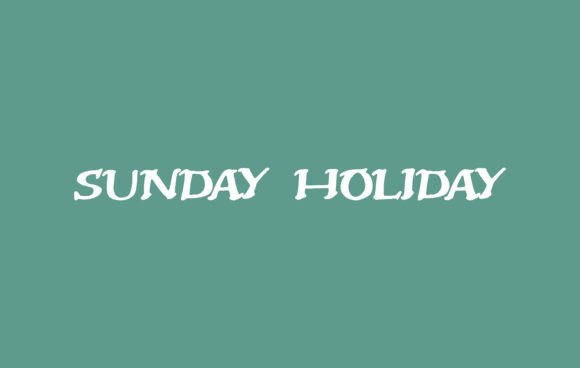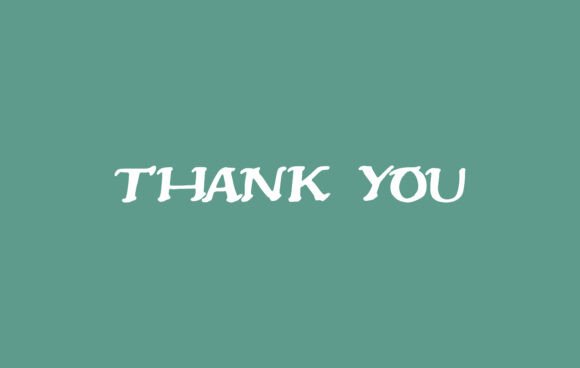
Introduction to Ironworks Font
Have you ever stumbled upon a font that sparks creativity and transports you to a world of endless possibilities? That’s exactly what happens when you discover the Ironworks Font, a high-quality, authentic handwritten font with a romantic touch. Whether you’re working on a design project or simply need a reliable font for your next creative endeavor, Ironworks Font is an excellent addition to your design resource.
With its legible design and versatility, Ironworks Font is perfect for a wide range of applications, from magazine headlines and social media to branding and wedding invitations. Its free download feature makes it an attractive option for designers on a budget, and its transparent background allows for seamless integration into any design project. As a valuable resource for designers, Ironworks Font is sure to elevate your creative projects to new heights.
Key Features of Ironworks Font
- Includes a range of font styles and weights to suit different design needs
- Designed to be highly legible at various resolutions, including 300 DPI and 600 DPI
- Perfect for use in logos, branding, and other design elements where a unique, industrial feel is desired
Honest Review: Ironworks Font
I recently had the chance to work with the Ironworks Font, and I must say, I’m quite impressed. As a designer, I’m always on the lookout for high-quality fonts that can elevate my creative projects. The Ironworks Font did not disappoint.
What works well: ✨ The font has a great, industrial feel to it, making it perfect for projects that require a touch of ruggedness. The font is also available for free download, which is always a bonus. Additionally, the transparent background makes it easy to work with in design software.
Limitations: ⚠️ While the font is great for industrial-themed projects, it may not be the best choice for more delicate or elegant designs. Additionally, some users may find the font’s boldness overwhelming.
Overall impression: I’m really pleased with the Ironworks Font and would definitely recommend it to designers working on creative projects. Its unique design and free availability make it a valuable resource in any design arsenal.
Getting the Most Out of Ironworks Font
To get the most out of the Ironworks Font, use it with a transparent background to create a sense of depth and dimensionality in your designs. Experiment with different font sizes, colors, and styles to create a unique and creative look.
The Ironworks Font is ideal for a variety of creative projects, including branding, packaging, and advertising designs. Its high-quality and unique design make it a great choice for any project that requires a professional and creative look.
Q: Can I customize the Ironworks Font to fit my specific design needs?
While the Ironworks Font is a high-quality design resource, it’s not intended for extensive customization. However, you can experiment with font styles, sizes, and colors to create a unique look for your creative project. If you need more extensive customization options, you may want to consider commissioning a custom font design or using a font editor to create your own custom font.